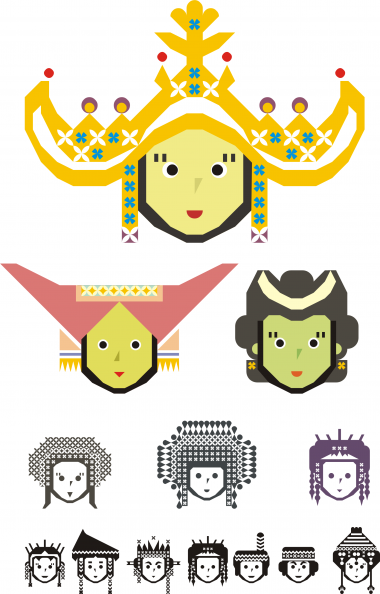
This font contains 12 women traditional style from any place in Indonesia. A = Javanese Women (Java) B = North Sumatra woman C = Minang woman (West Sumatra) D = Malay woman (Lampung) E = Balinese woman (Bali) F = East Nusa Tenggara woman G = Jambi woman (Jambi) H = Javanese woman 2 (West Java) I = Dayak woman (West Kalimantan/Borneo) J = Dayak woman 2 (East Kalimantan/Borneo) K = Batak Karo woman (West Sumatra) L = Minang woman wedding style (West Sumatra)
this is a great entry and very good work. this is what i was hoping one day to see from you and here it is. you display a very intuitive skill here for creating these types of non-glyphs. my only suggestion is that you do more of these - different sets and themes. here's one - do a set of glyphs doing poses from a traditional dance...maybe one day. but whatever, continue have fun :) congrats.
Quite lovely! 10/10
We need a sample image! :-)
Wow very well crafted
I concur heartily with everything that has been said!
Pretty sample and pretty font! !0/10
I want to put 10/10.Adien (sorry)
Congratulations! FontStruct Staff have deemed your FontStruction worthy of special mention. “Indonesian Woman” is now a Top Pick.
I LOVE this!